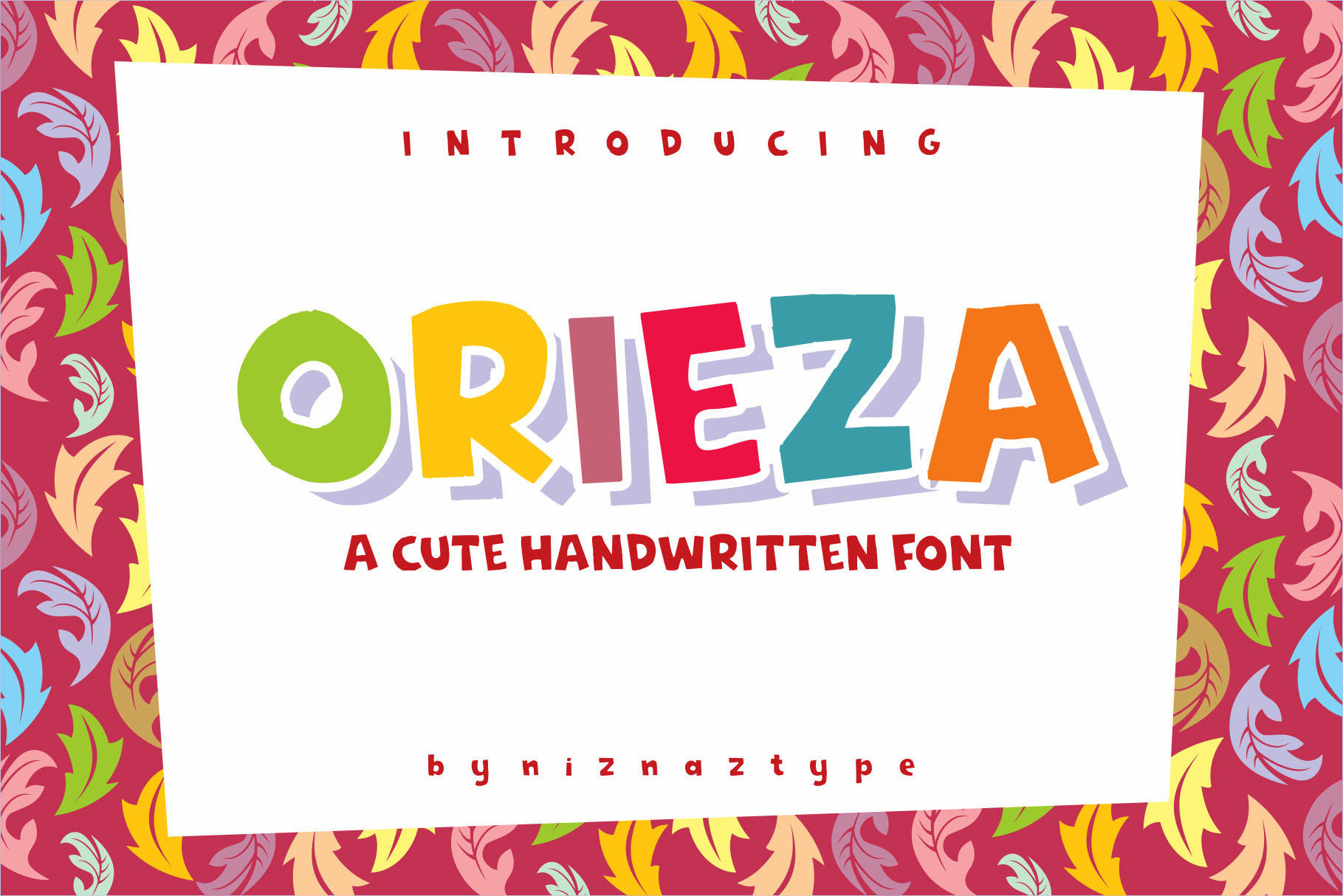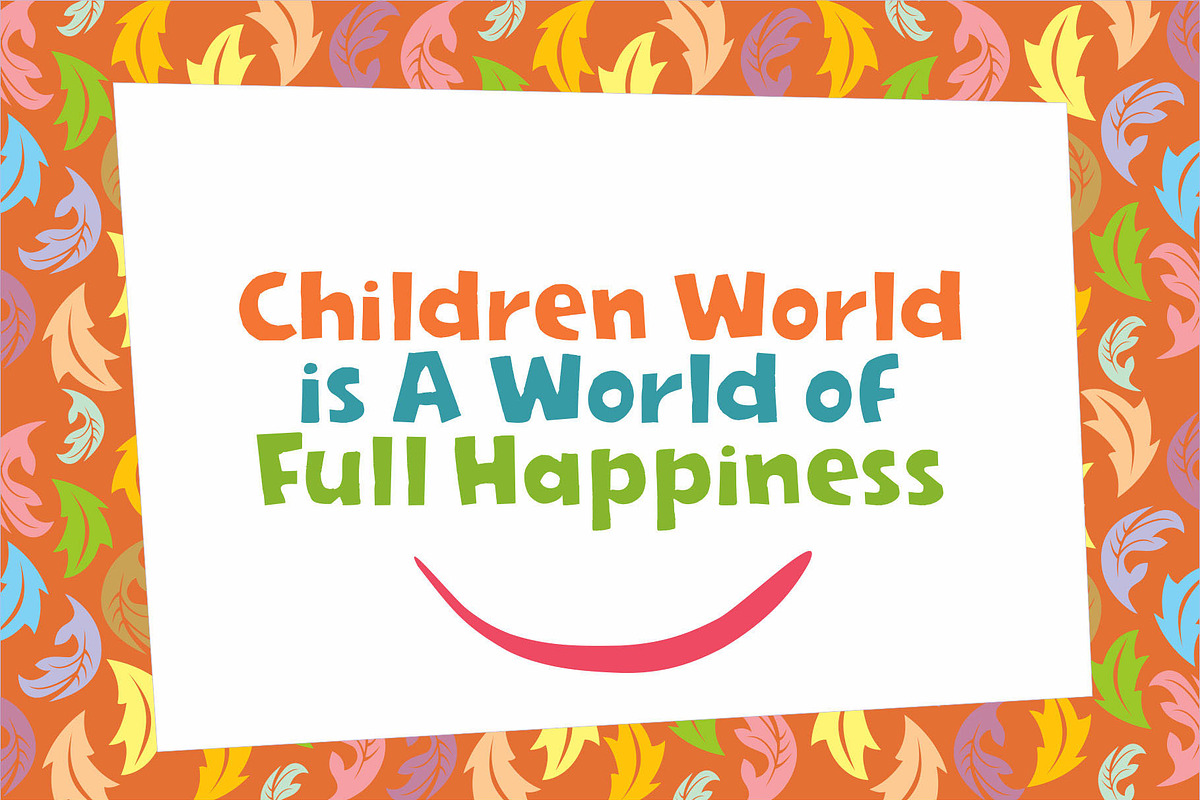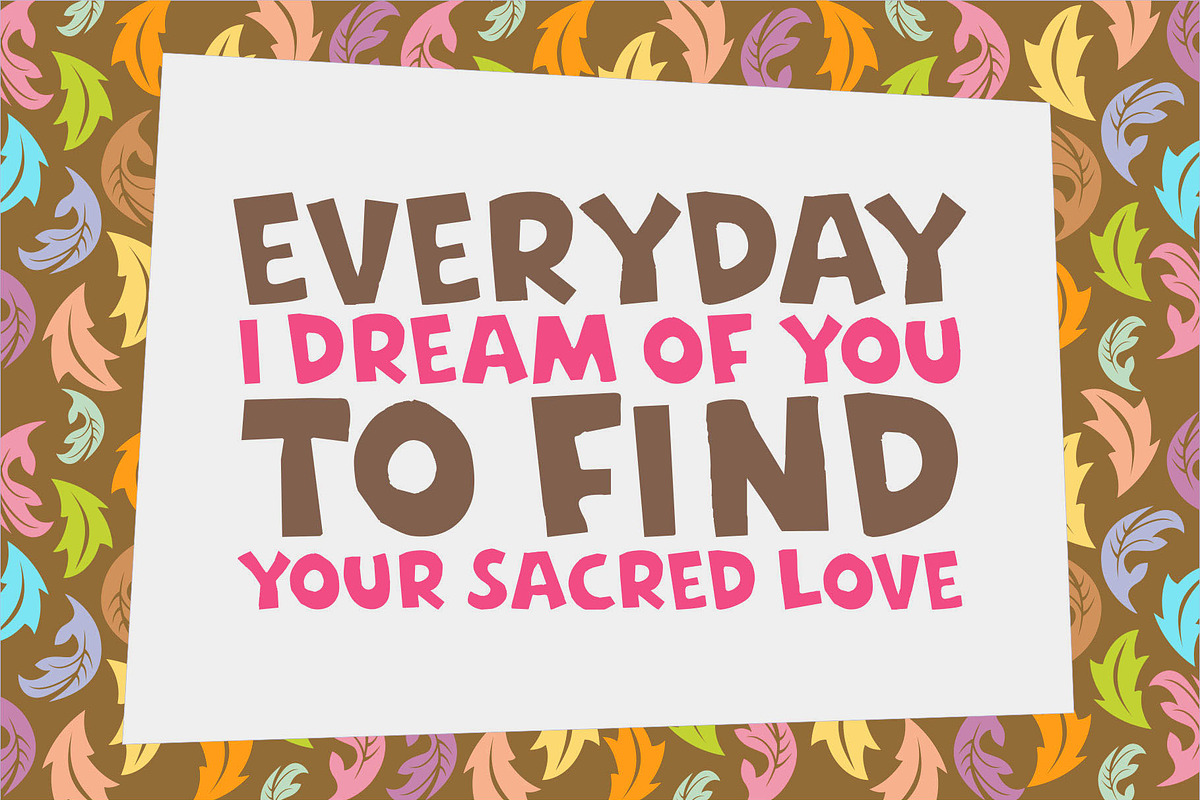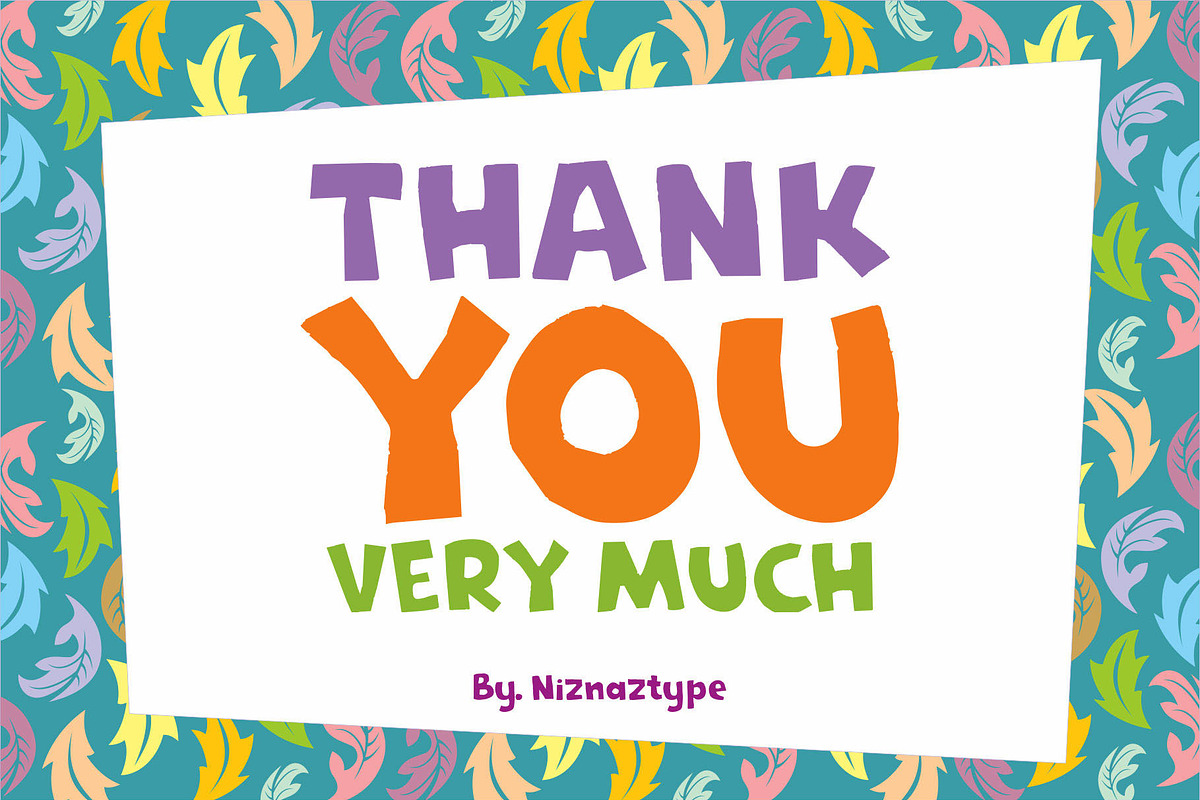
Orieza - Handwritten Font
Introducing Orieza Font, a handwritten typeface. Cute, simple and fun styles Orieza very comfortable for design that put a themes like children, comic, bubble text, illustration typing etc. Orieza have three formats, TTF OTF and WOFF. It content uppercase, lowercase, numeral and punctuation. Enjoy with this fun font !